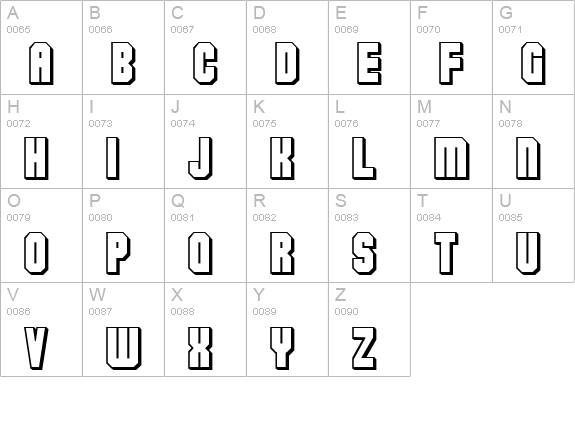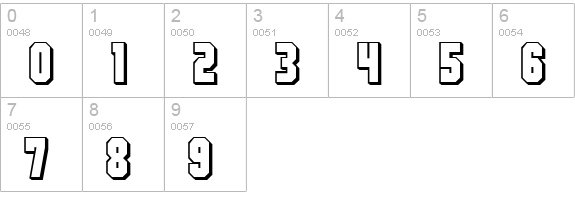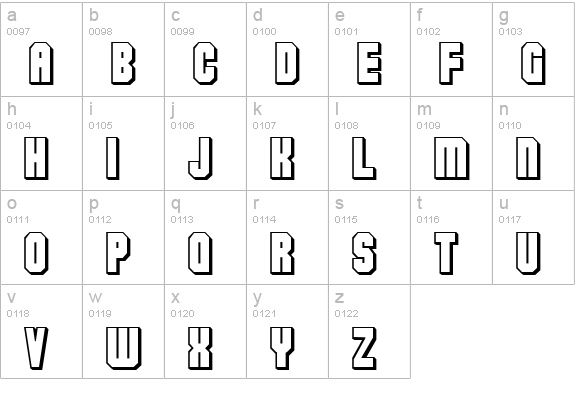
Flashback version 3 font is a stylish and eye-catching typeface that exudes a retro vibe with a modern twist. With its bold and dynamic design, this font is perfect for creating impactful headlines, posters, and branding materials. The unique characters and intricate details make Flashback version 3 font stand out from the crowd, adding a touch of nostalgia to any project. The best part? Flashback version 3 font is available for free download at FontsMarket.com. That's right, you can easily access this stunning font and use it in your designs without any cost. Whether you're a professional designer or just looking to spice up your personal projects, Flashback version 3 font is a versatile and creative choice that will elevate your work to the next level. Download it now and unleash your creativity with this captivating typeface.